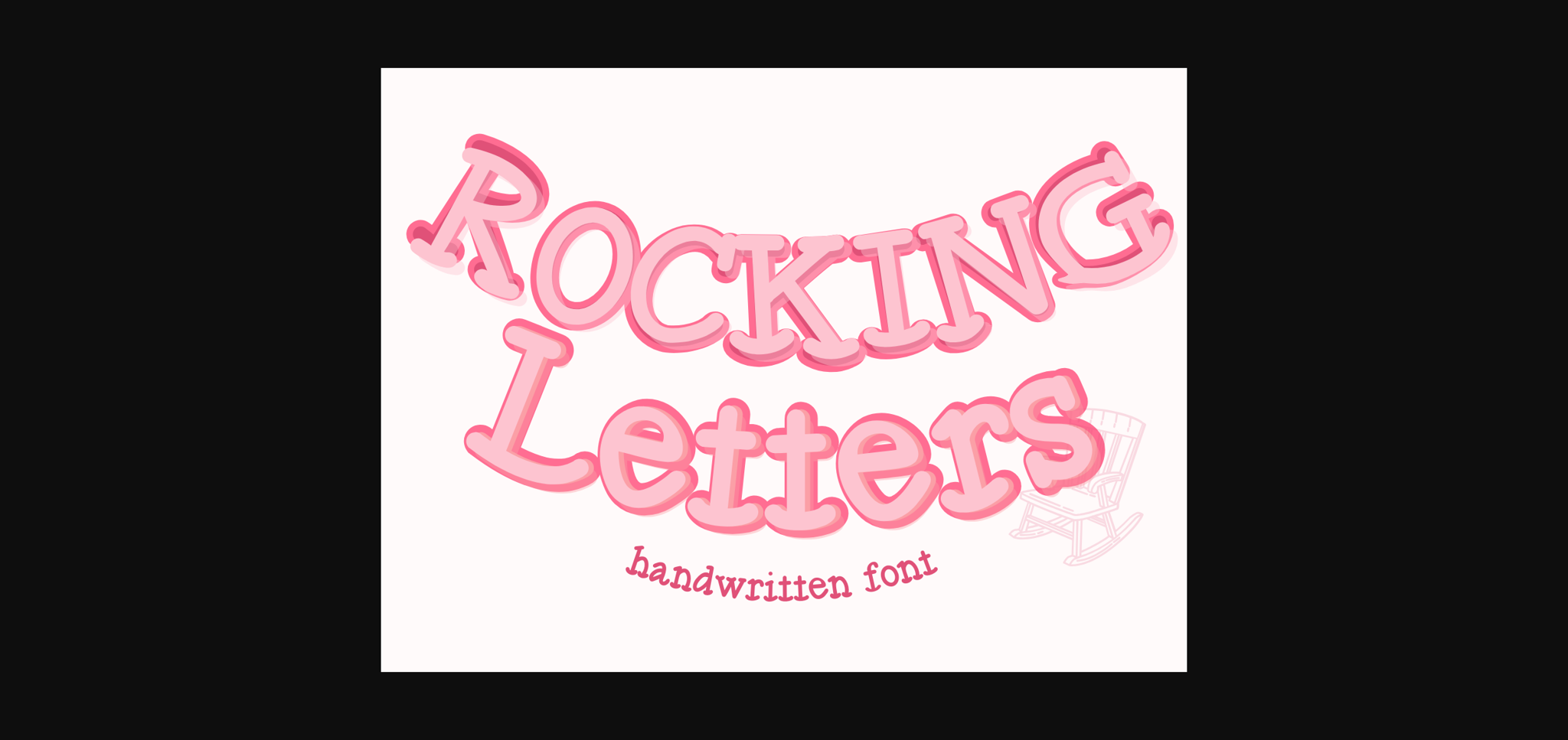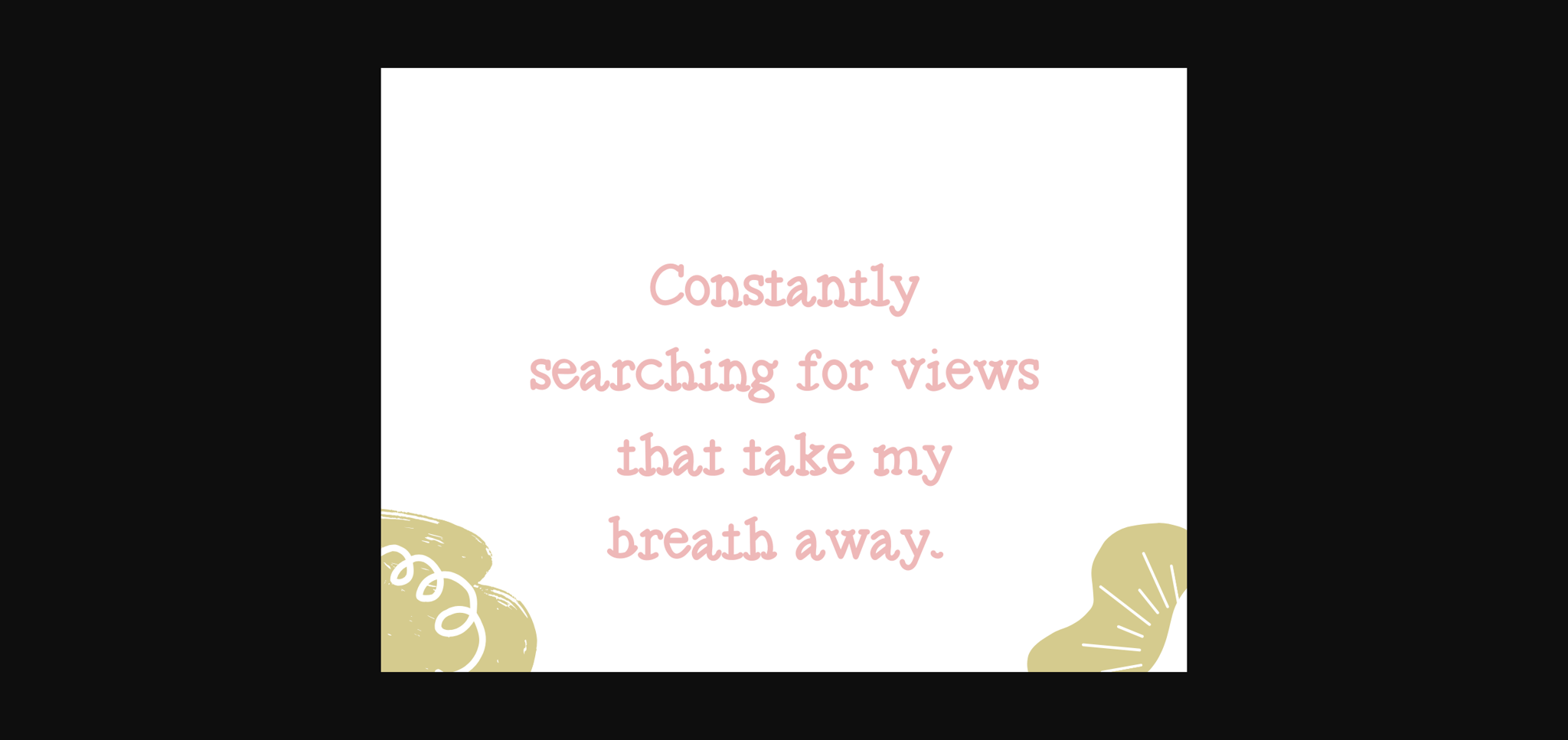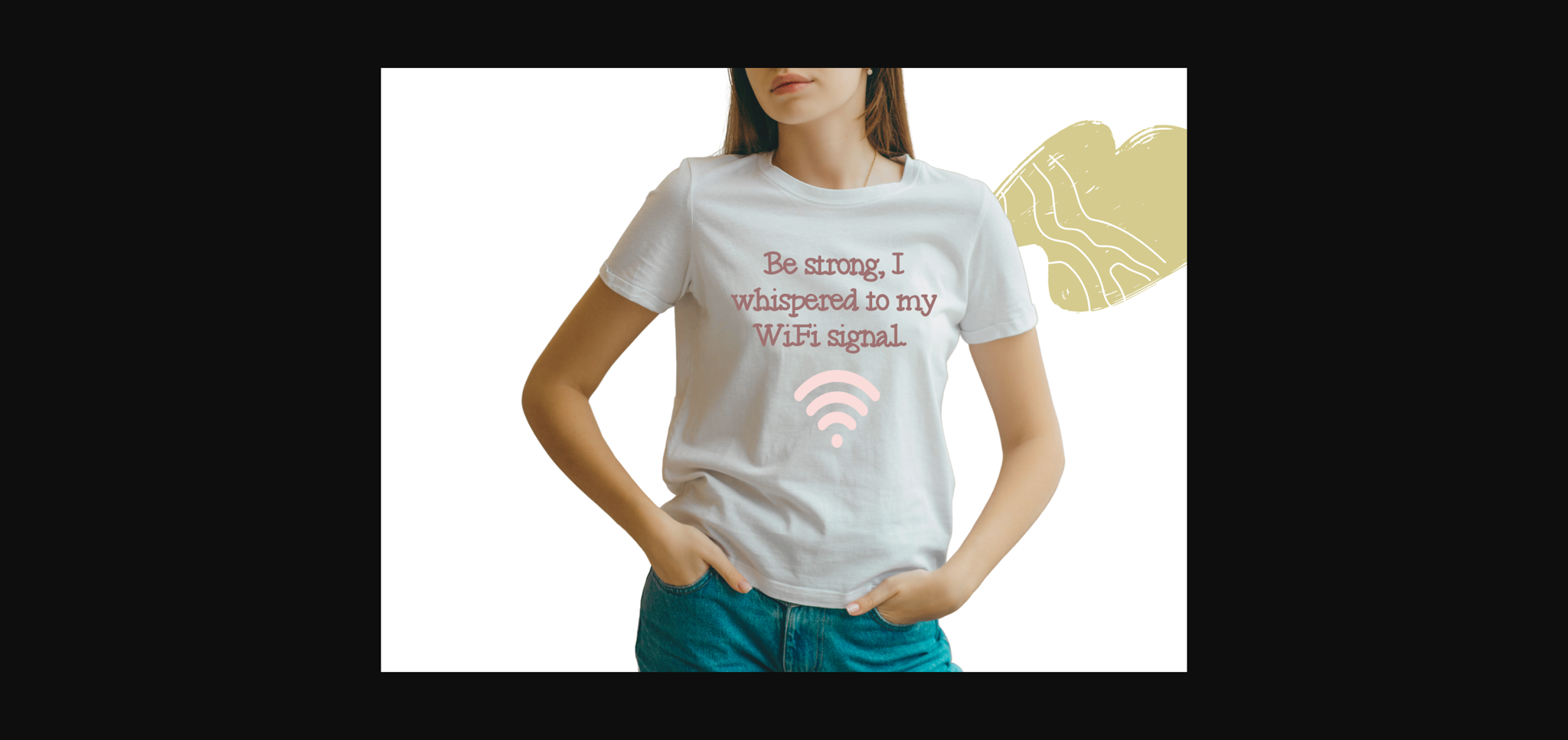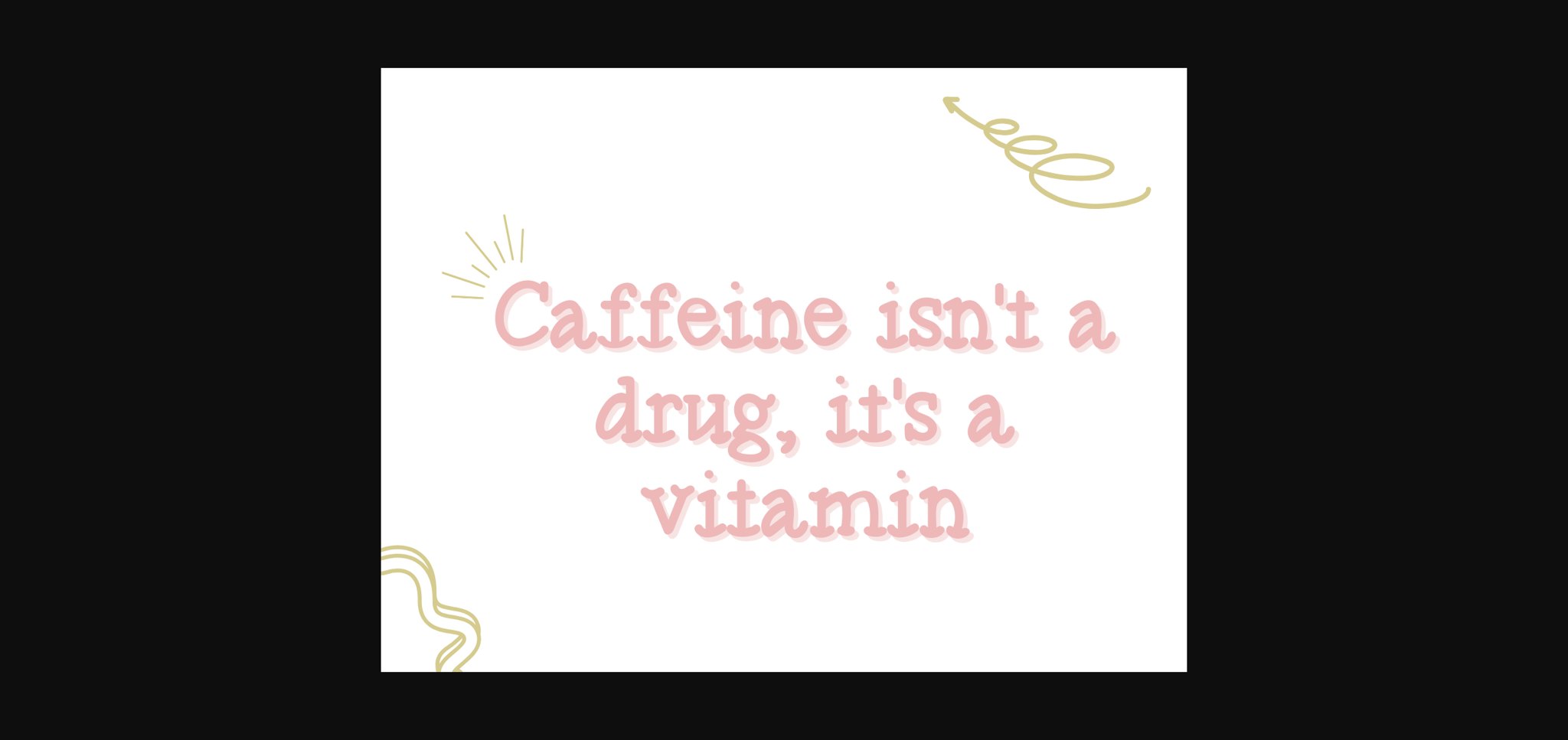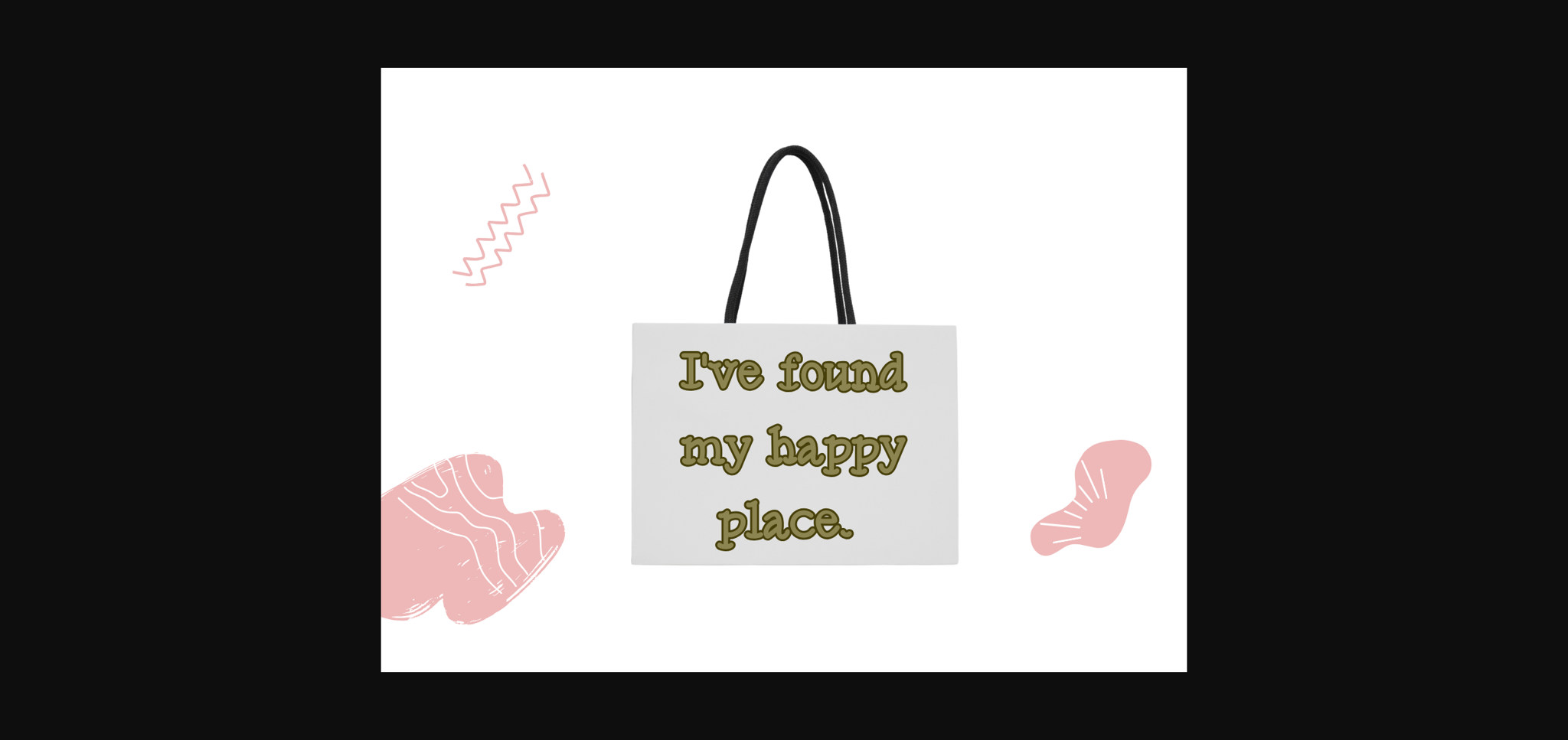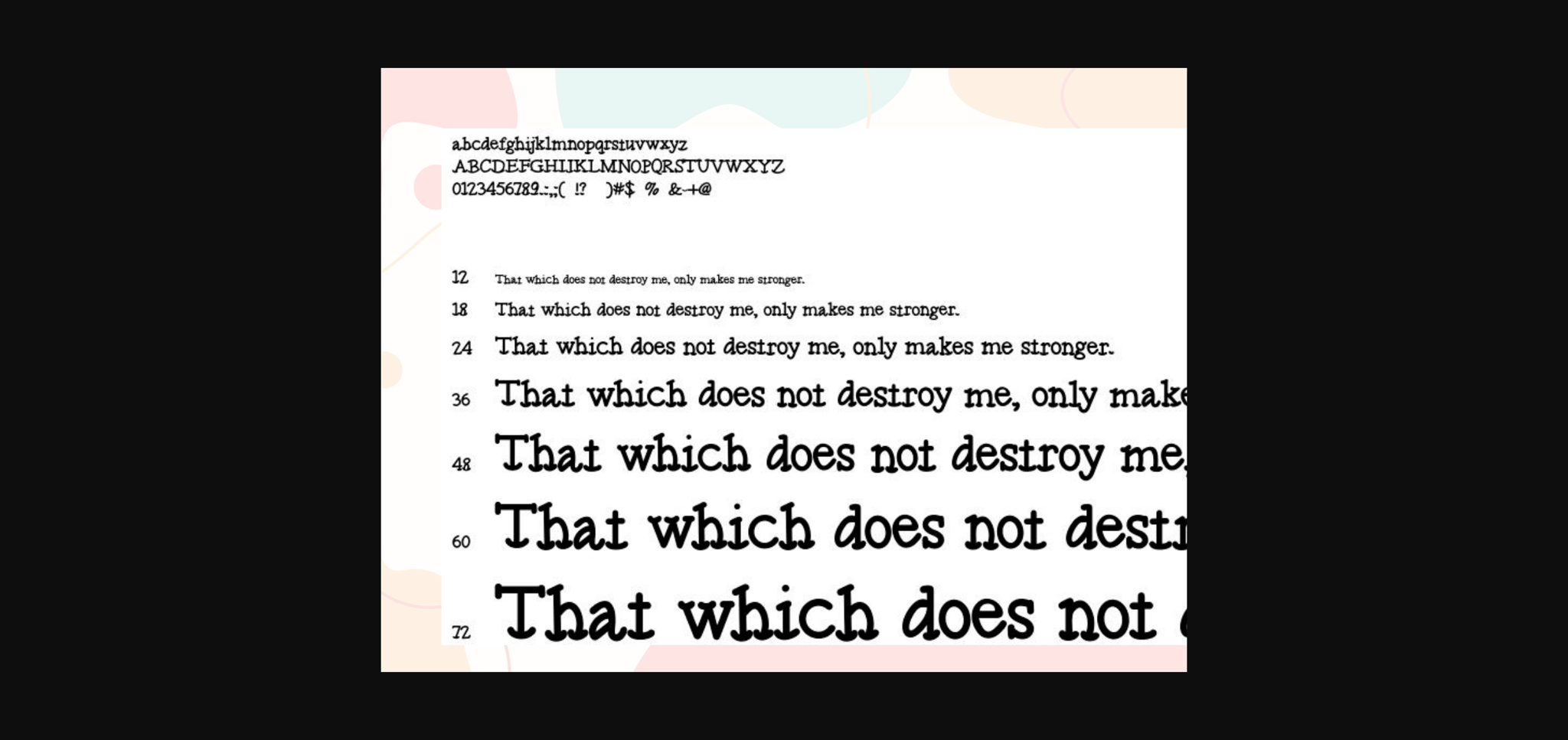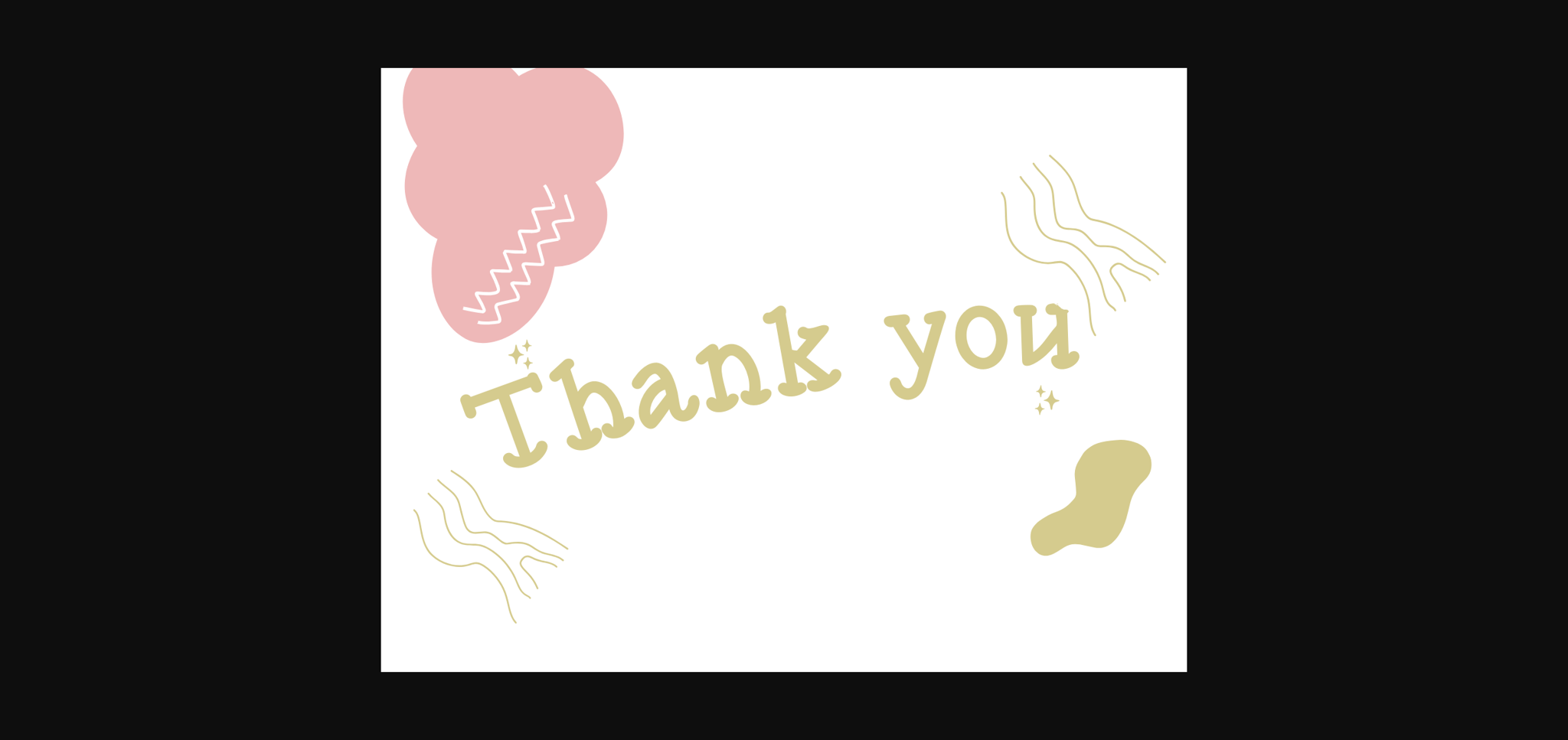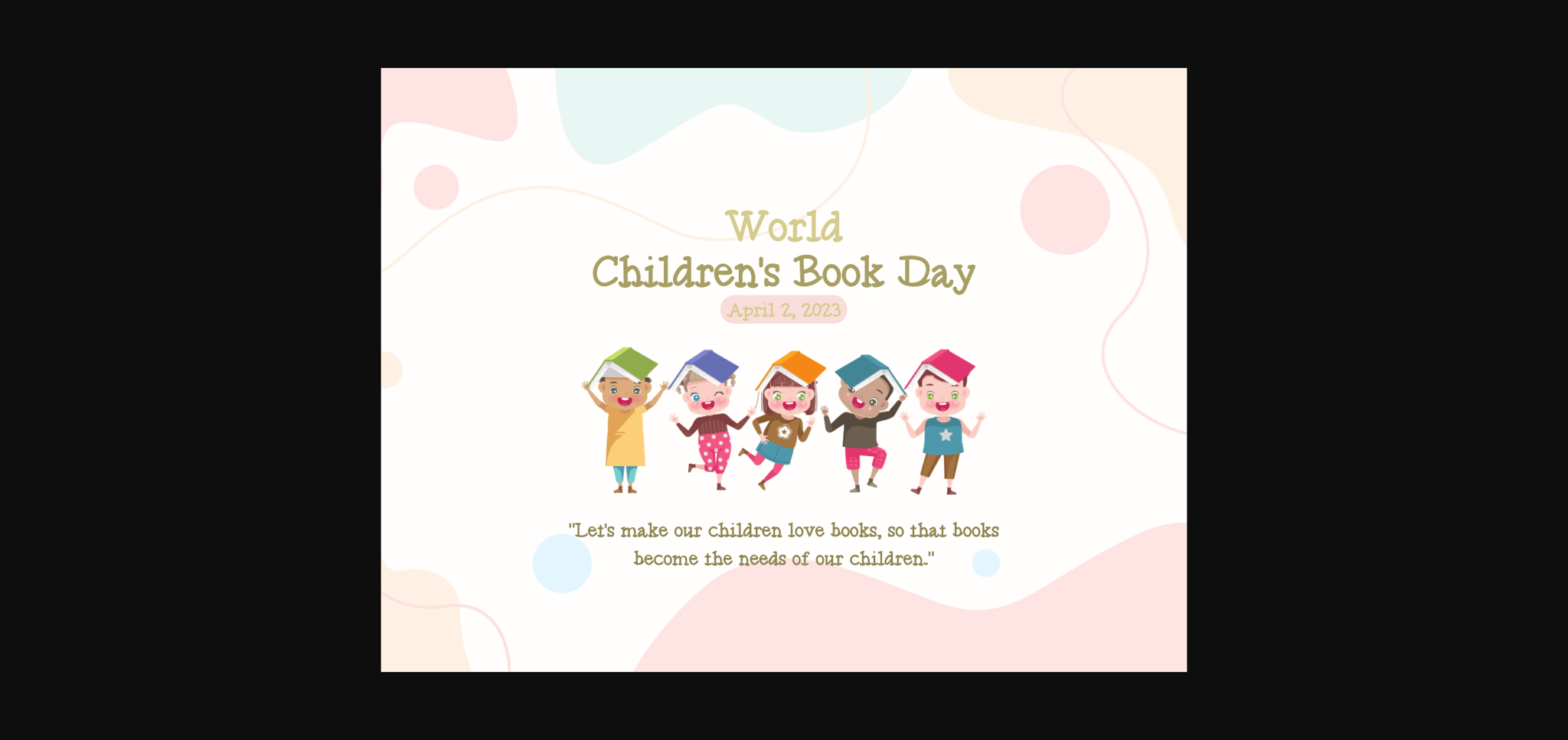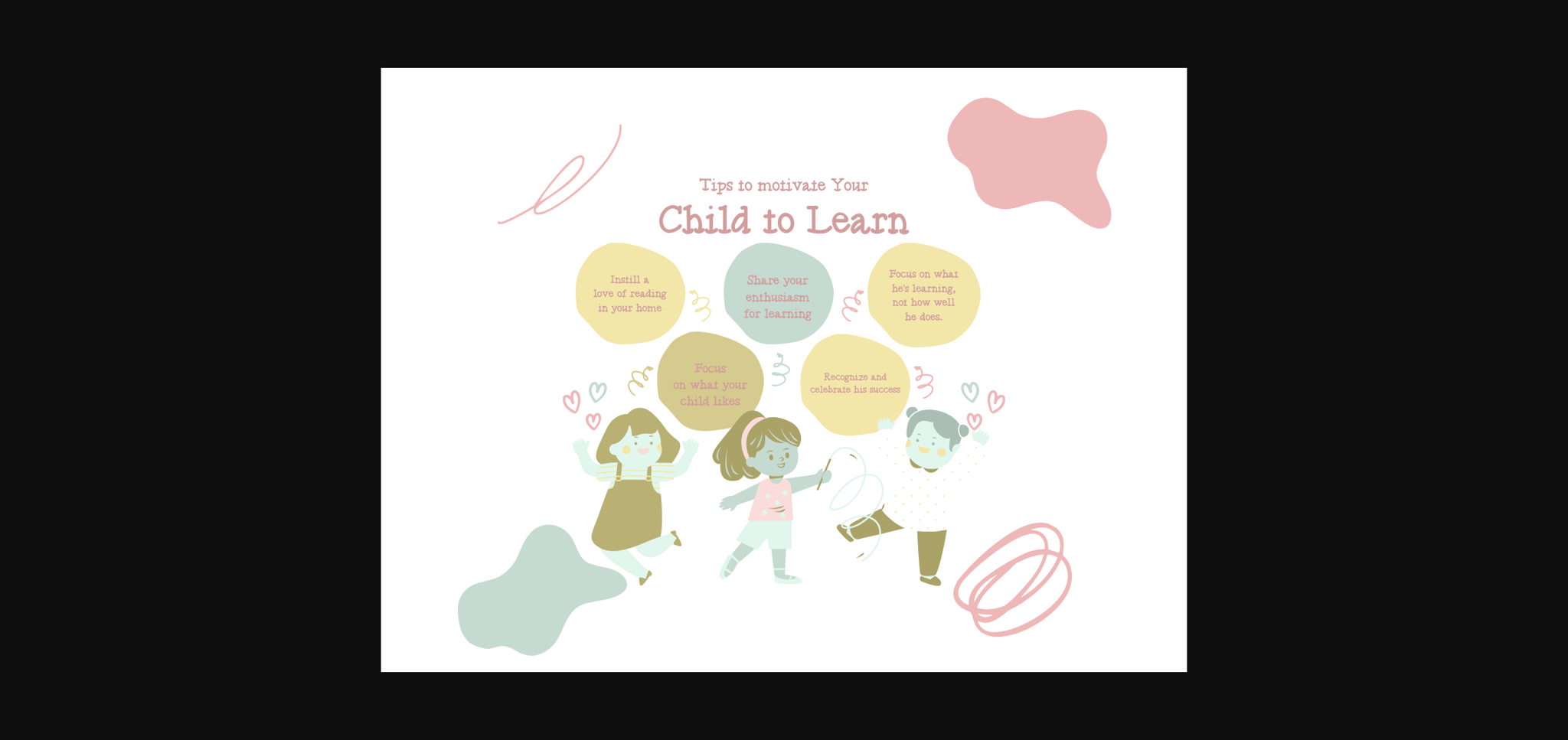
HomeSans Serif FontsRocking Letters Font Sans Serif Fonts Rocking Letters Font FacebookXPinterestWhatsApp 1 of 11 ... Rocking Letters Font Poster 2... Rocking Letters Font Poster 3... Rocking Letters Font Poster 4... Rocking Letters Font Poster 5... Rocking Letters Font Poster 6... Rocking Letters Font Poster 7... Rocking Letters Font Poster 8... Rocking Letters Font Poster 9... Rocking Letters Font Poster 10... Rocking Letters Font Poster 11... About Rocking Letters Font Rocking Letters is a fun and friendly handwritten font. Use it to turn any design idea into a true standout. Get inspired by its unique charm and create lovely designs. DOWNLOAD NOW People also explored Christmas Tree Font Christmas Moments Font Snow Ice Cream Font Happy Valentine Font Swite Brush Font Eassy Vigossa Font Dunklem Font Floral Font Ravilailey Font 661 0 TagsRocking Letters Font Previous articleEtehnic Qee FontNext articlePypats Font LEAVE A REPLY Cancel reply Comment: Please enter your comment! Name:* Please enter your name here Email:* You have entered an incorrect email address! Please enter your email address here Website: Save my name, email, and website in this browser for the next time I comment. Personal Use Free Hollow Personal Use Free Read more about this font Summer Pisces Personal Use Free Read more about this font Solaria Personal Use Free Read more about this font Cuttering Personal Use Free Read more about this font BLOG Using Fonts in Digital Marketing: Tips to Strengthen Your Brand Identity In the realm of digital marketing, every visual element plays a crucial role in shaping a brand's identity, and fonts are no exception. The... Free Fonts Risk: Why Free Fonts Can Be Dangerous for Designers Best Fonts for T-Shirt Design – Top 2025 Picks Elegant Wedding Invitation Fonts – Handwritten & Script Fonts